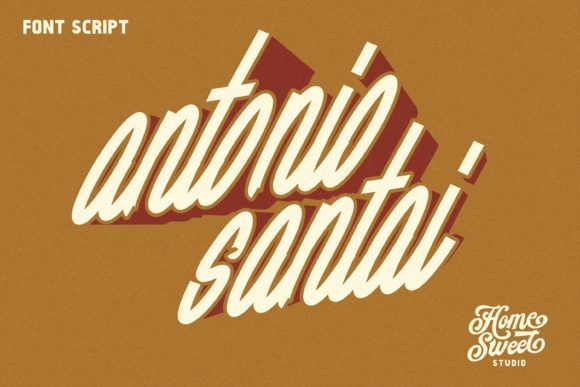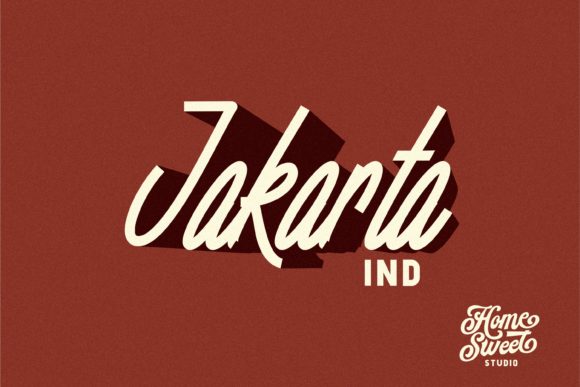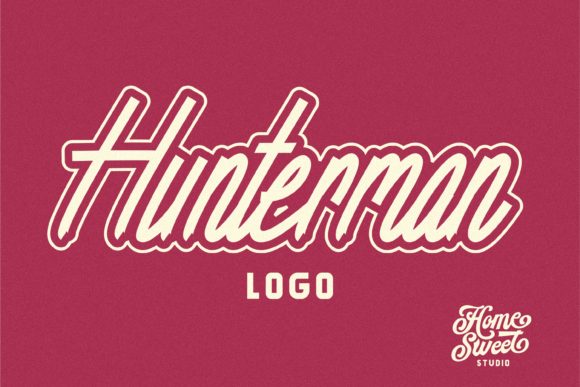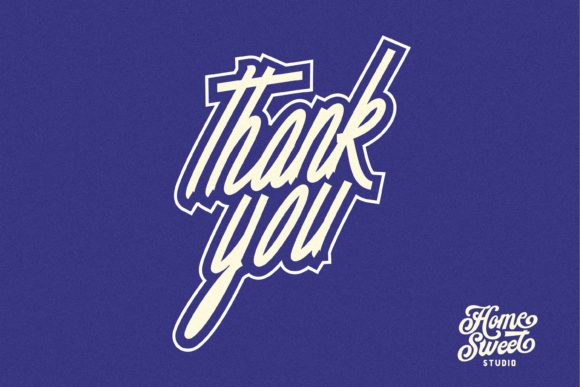
Antonio Santai Font
About Antonio Santai Font
Looking for a vintage font with a bold twist? Look no further: Antonio Santai is a stunning and powerful handwritten font with an undeniably retro charm.